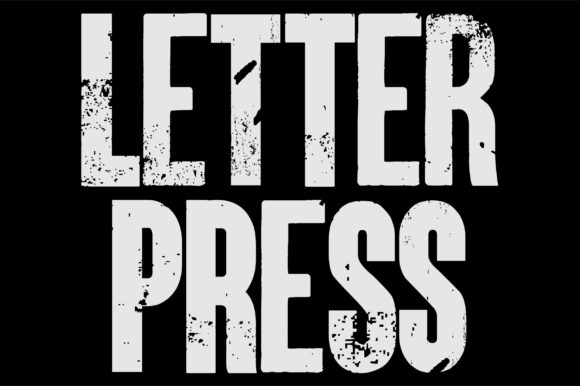
Embark on a journey through time with Letterpress Font, a decorative font that exudes a raw, vintage charm. Its grungy aesthetic is a testament to the enduring power of classic printing techniques, evoking the nostalgic essence of yesteryears. Crafted by the ingenious minds at Typography Morozyuk, Letterpress Font is not just a collection of characters; it's a gateway to a bygone era, an ode to the art of letterpress printing.
Unleash your creativity with Letterpress Font, designed to transport your designs back in time. Its rough edges and imperfect textures are a testament to the authenticity of the printing process, adding an air of authenticity to your projects. Whether you're a seasoned designer or just starting your creative journey, Letterpress Font is the perfect companion for evoking a sense of heritage and nostalgia in your designs.
With its distinct character, Letterpress Font is ideally suited for a wide range of design applications. From vintage-inspired logos and posters to eye-catching social media graphics and website designs, this font adds a touch of timeless elegance to any project. Its versatility extends to product packaging, apparel designs, and even handwritten notes, where its unique charm shines through.
Step into the world of Letterpress Font and let your designs speak volumes. Its timeless appeal is sure to resonate with audiences seeking a connection to the past, while its versatility ensures endless possibilities for creative expression. Embrace the beauty of imperfection and let Letterpress Font guide you on a creative journey that is both captivating and impactful.